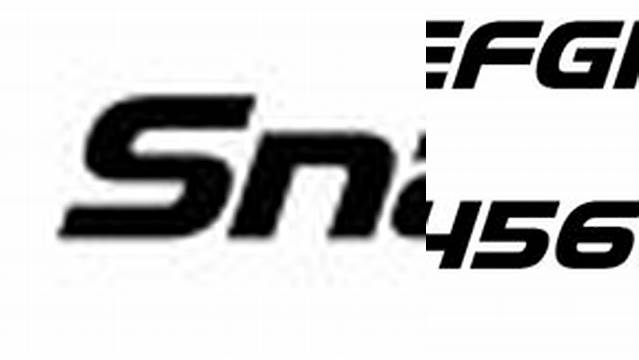
Hey there, design enthusiasts! Are you on the hunt for a font that screams personality and elegance? Look no further! Today, we're diving deep into the world of typography and specifically, the Snasm Bold Italic Font, offering you a chance for a free download of the TTF (TrueType Font) file. This font is a real gem, perfect for adding a touch of sophistication and flair to any project you're working on. Whether you're a seasoned graphic designer, a budding content creator, or just someone who loves to dabble in creative projects, understanding and utilizing fonts like Snasm Bold Italic can seriously elevate your work. We'll explore everything from where to download the font safely, to how you can use it to create stunning visuals. Ready to transform your designs? Let's get started!
What Makes Snasm Bold Italic Font Special?
First things first, let's talk about why Snasm Bold Italic is so special. This font isn't just another typeface; it's a statement. The bold and italic combination gives it a unique visual appeal, making it stand out in a crowd. The bold style ensures that your text grabs attention, perfect for headlines, titles, and any text you want to emphasize. The italic style adds a sense of dynamism and elegance, making it ideal for body text, captions, or anything that needs a touch of sophistication. Snasm Bold Italic is incredibly versatile. It seamlessly fits into a wide array of design projects. Whether you're working on a logo, designing a website, creating marketing materials, or even crafting personal invitations, this font has got you covered. Its clean lines and readable design ensure that your message is not only stylish but also easily understood by your audience. The font's adaptability means you can use it in a variety of contexts, from digital to print. This kind of flexibility is invaluable for any designer looking to create a cohesive brand identity or simply add some visual interest to their work. Consider how it could transform a plain poster into a captivating piece of art, or how it could elevate your website's typography, making it more appealing and user-friendly. The design of the font itself is also noteworthy. Snasm Bold Italic's character set is thoughtfully crafted, with each letter and symbol designed to complement the others. This attention to detail ensures a consistent and professional look. With its bold and italic features, it is a font that speaks volumes without shouting, making it a fantastic tool for anyone looking to make a lasting impression. Its capacity to add elegance and a touch of flair to your designs, while maintaining readability, makes it a preferred choice for many designers.
Creative Ways to Use Snasm Bold Italic Font
Ready to get those creative juices flowing? Snasm Bold Italic isn't just a font; it's a tool to make your designs pop. Let's explore some creative ways you can leverage this stylish typeface. First off, think about using it for logos and branding. Its bold and italic design lends itself perfectly to creating a unique brand identity. Imagine the font as the centerpiece of your logo, instantly conveying a sense of sophistication and modernity. For social media graphics, the font is a game-changer. Craft eye-catching captions, headlines, and quotes that grab attention as people scroll through their feeds. The italicized style adds a touch of elegance, making your content stand out from the crowd. Websites and blogs can be given a facelift using Snasm Bold Italic for headings and subheadings. It adds visual interest and improves readability. This helps to create a more engaging user experience. You might also use it for print materials like posters and flyers. The bold and italic features make it ideal for drawing attention to your key messages. Whether you're promoting an event, a product, or a service, this font will help ensure your message is seen and remembered. Also, if you are preparing invitations and greeting cards, the font's sophisticated look is the perfect choice. It adds a personal touch and sets the tone for your event. Lastly, the font can be used in various other creative projects, such as creating custom quotes, artwork, or even enhancing presentations. Get creative and experiment with the font to make your ideas come to life. Don't be afraid to try different colors, sizes, and effects. The more you play around with the font, the more you will discover its full potential and how it can fit your style.
Conclusion: Unleash Your Creativity with Snasm Bold Italic
So there you have it, guys! We've covered everything you need to know about the Snasm Bold Italic font: what it is, where to get it, how to use it, and how to avoid any potential issues. This font is a fantastic tool for anyone looking to add a touch of style and flair to their designs. Whether you're working on personal projects or professional assignments, Snasm Bold Italic offers a blend of sophistication and readability that's hard to beat. Remember to download it safely from reputable sources, and always double-check the licensing terms before using it. With a little practice and experimentation, you'll be creating stunning designs in no time. Go ahead, download the font and start creating something amazing. Your designs will thank you for it! Happy designing!